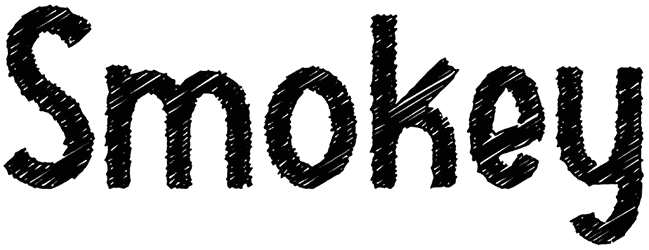
Smokey Font
Smokey, a brand new sketch font, seems to be a perfect match for your needs. If you want your work to have an academic appearance, then the chalked font Smokey is the ideal choice.
This font’s cross-hatched appearance makes it a good choice for commercials, movie titles, school designs, or anything else that needs to stand out more. Smokey is just one of the many wonderful fonts in RB’s huge library, all of which are available at no cost.